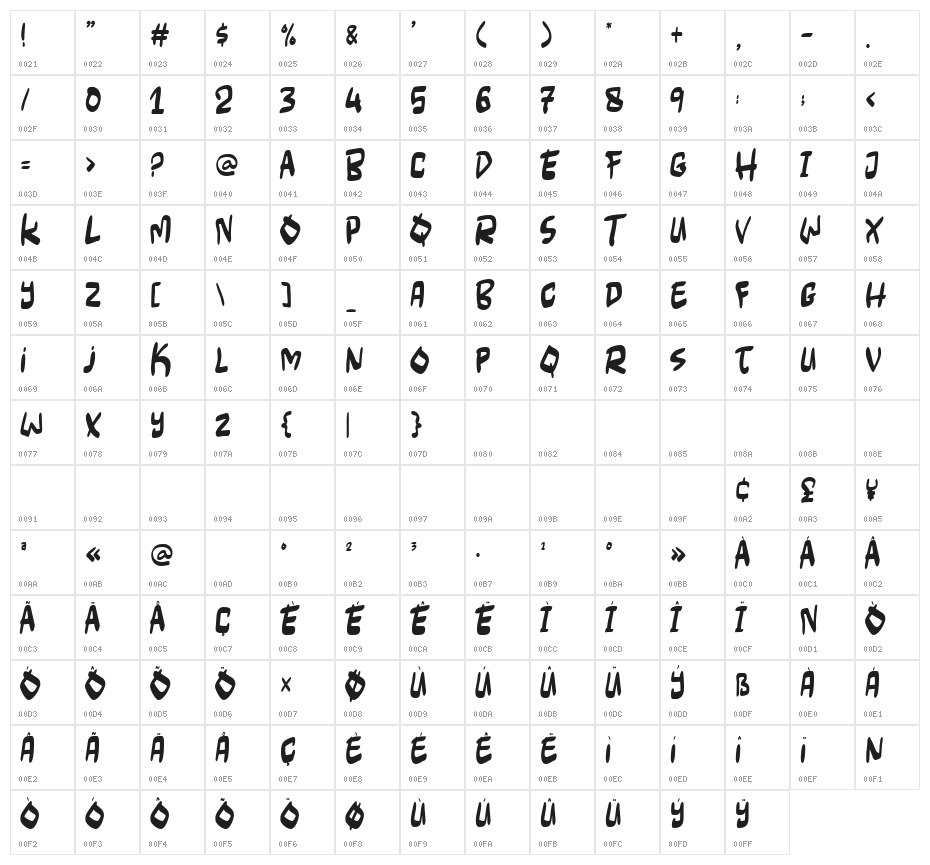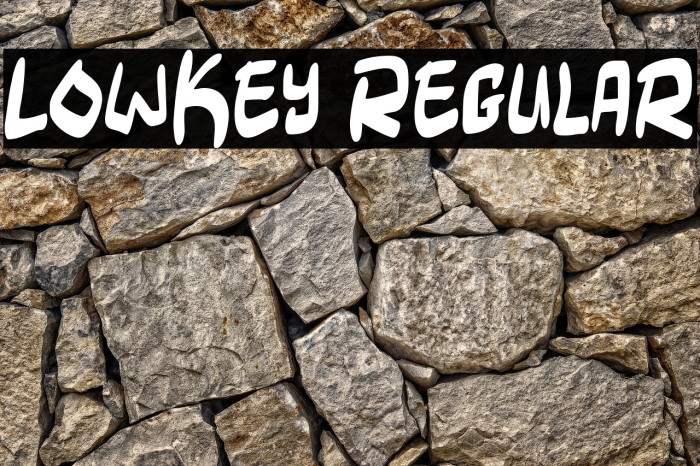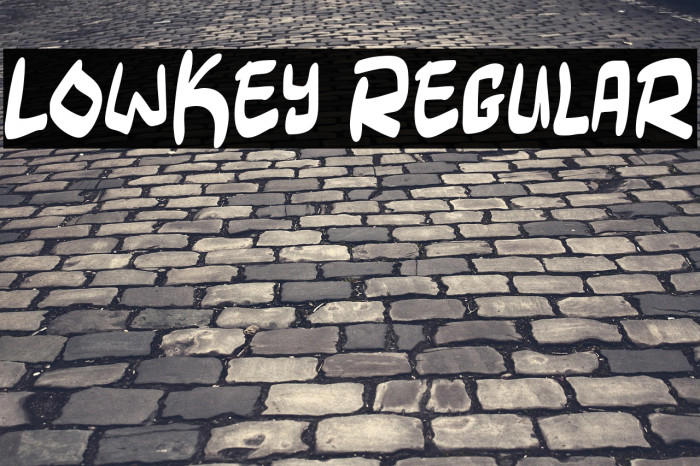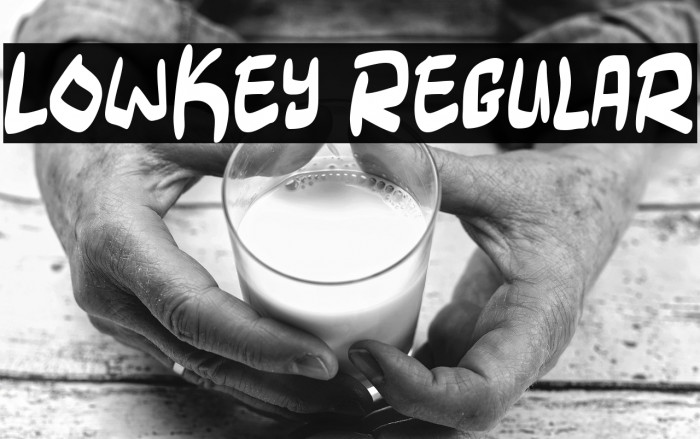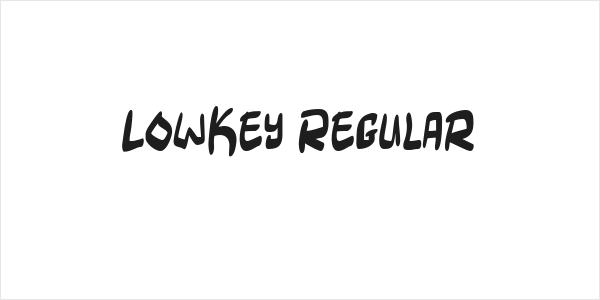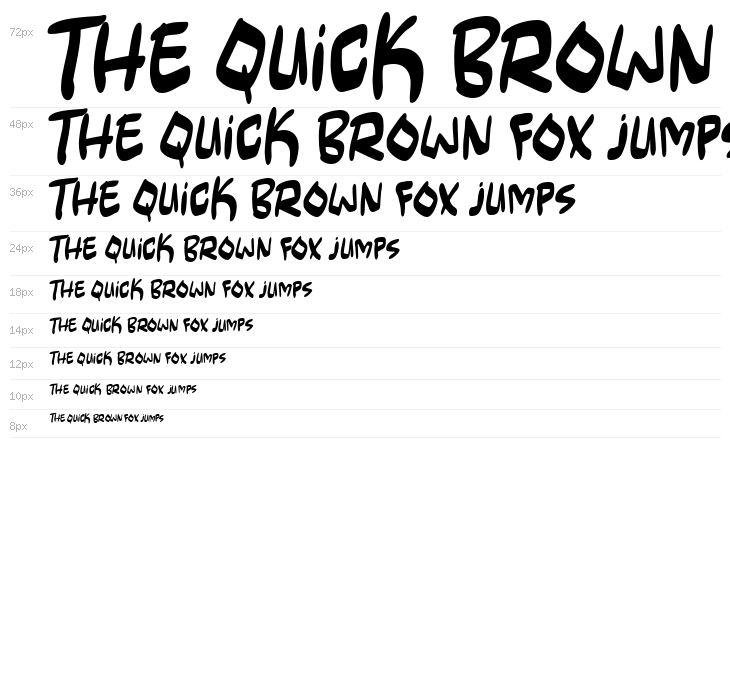
Lowkey Regular Font
Lowkey Regular Description
This font exhibits a bold, playful style with a handwritten appearance. The characters are rounded and slightly irregular, giving it a casual and friendly vibe. The uppercase and lowercase letters maintain a consistent flow, while the numbers and special characters complement the overall design. The strokes are thick and uniform, contributing to its bold presence. This font is ideal for projects that require a personal touch or a sense of informality.
| Overall Style | Playful, Casual |
| Use Case | Headlines, Logos, Informal Text |
| Proposed Projects | Great for greeting cards, children's books, playful branding, and casual invitations. |